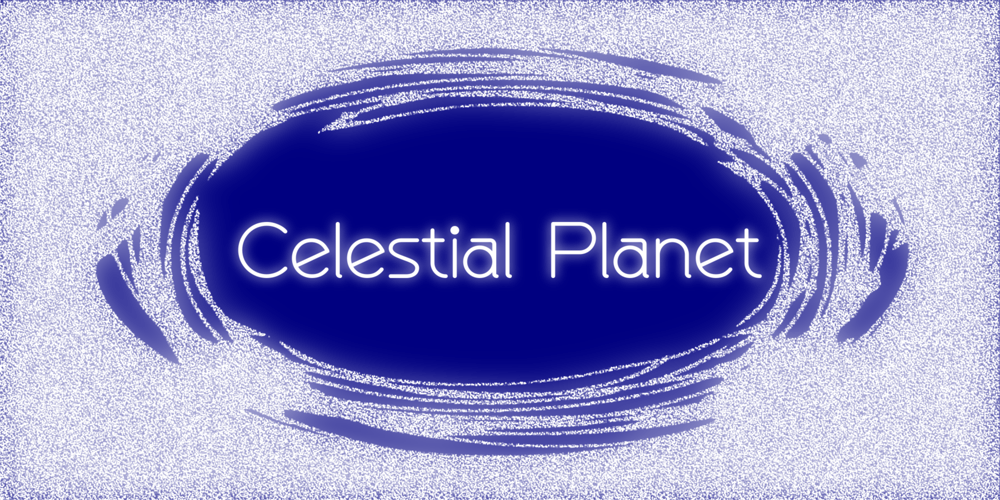
Celestial Planet Font Family was designed by Ahsan Ahmedzai and published by Kufic Studio. Celestial Planet contains 7 styles and family package options. Celestial Planet, a truly stylized and minimalist font. Perfect placements of glyphs and ascenders/descenders.This font includes all characters and glyph alternates (Included) to bring more charm and style into your designs.The idea of generating this font was for storytelling purposes, each character brings an individual impact in a story & posts.The complete font bucket includes; Regular, Italic, Light, Light Italic, Bold, Bold Italic, Ultra Bold & Ultra Bold Italic which will confidently bring a chic style touch to your designs and websites, the font is designed so easily be read & bring the minimalist effect to any kind of design.Kufic Studio is a platform that provides professional and high-quality designs & fonts to fill the gap that has been missing in the market.